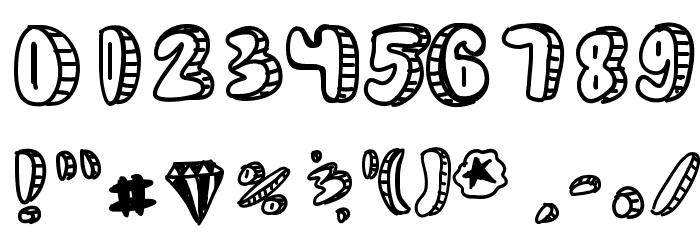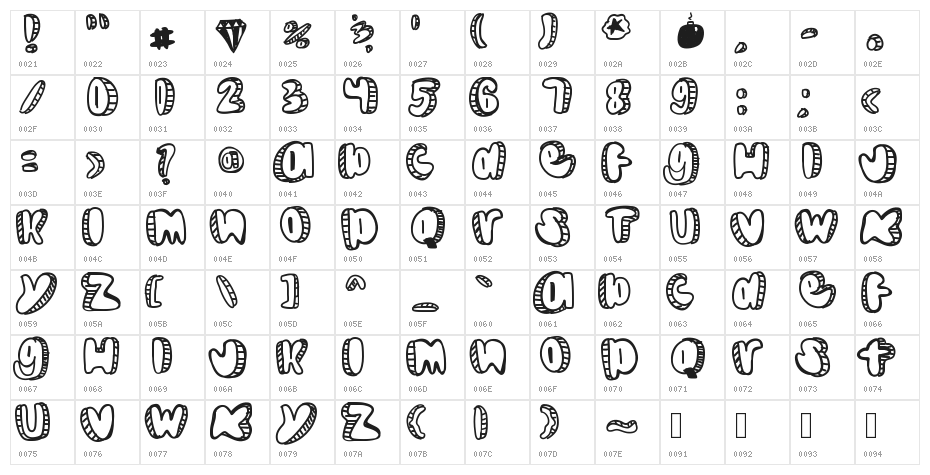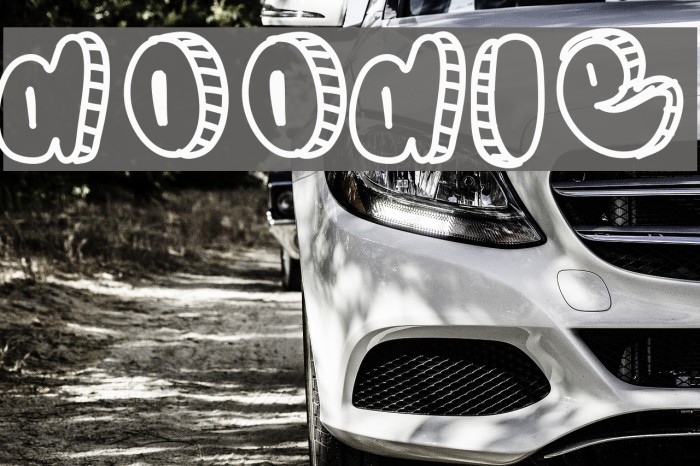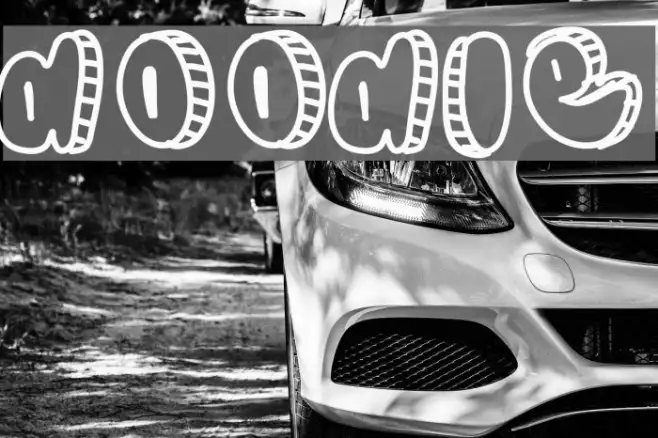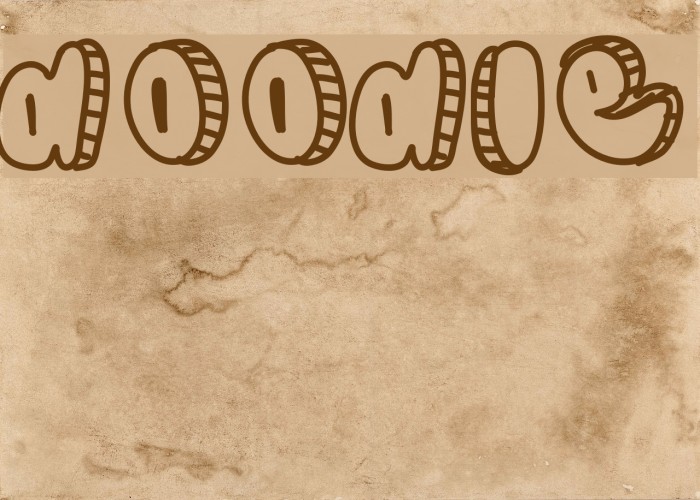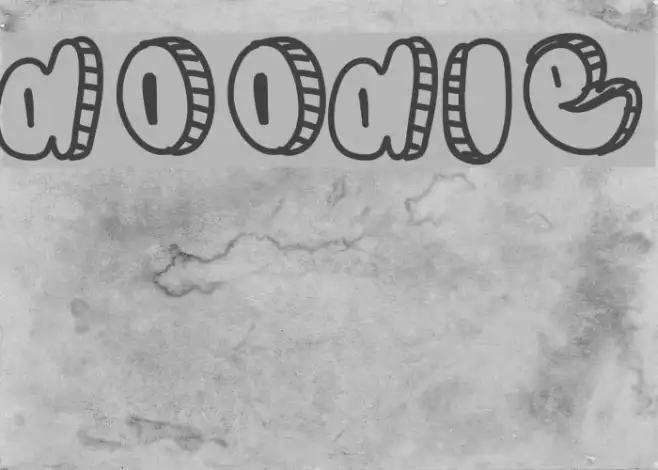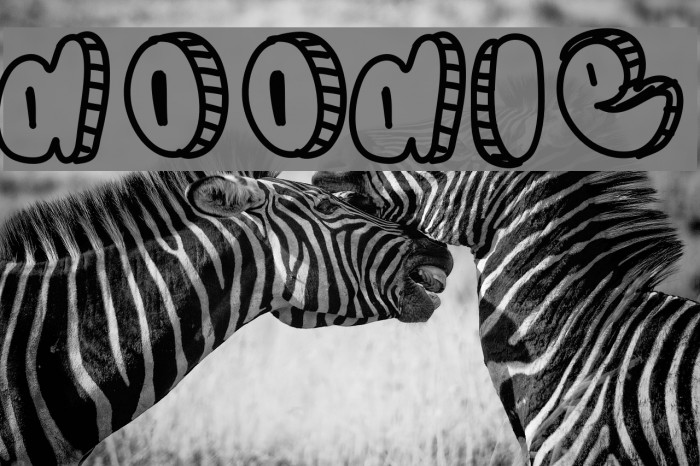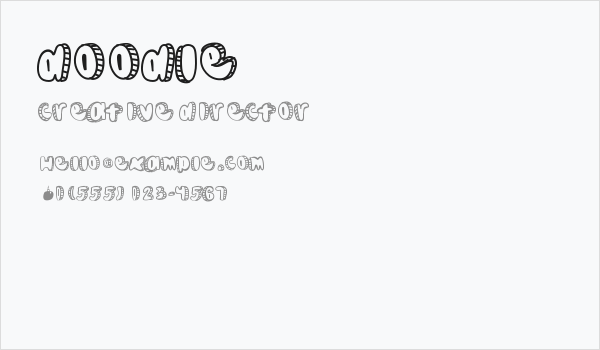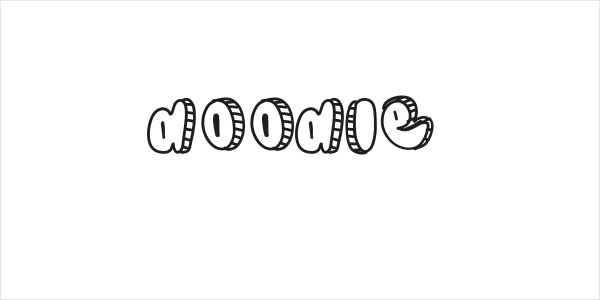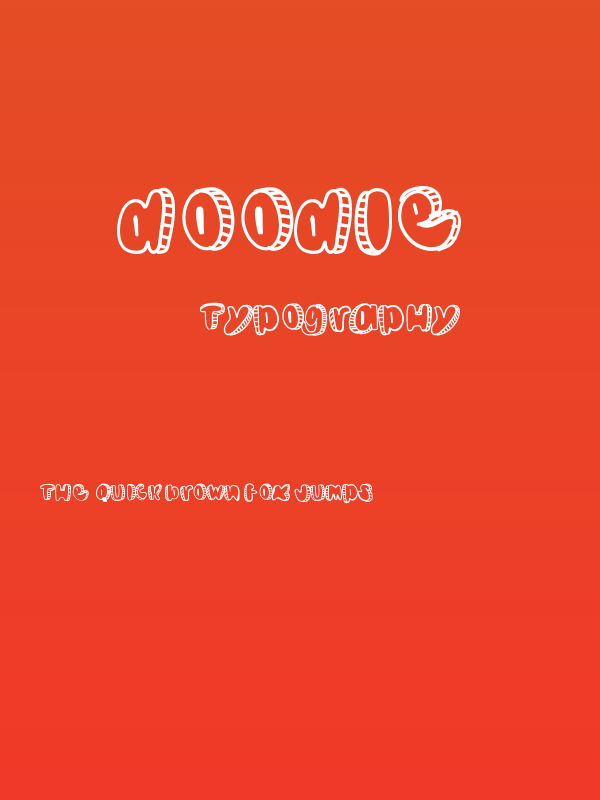
Doodle Font
Doodle Description
This playful and whimsical font features bold, rounded characters with a doodle-like appearance. Each letter is outlined with a thick, black stroke and filled with a pattern of diagonal lines, giving it a hand-drawn, cartoonish style. The uppercase and lowercase letters maintain a consistent style, with exaggerated curves and a slightly uneven baseline that adds to the casual, fun aesthetic. Numbers and special characters follow the same design, making the font cohesive and versatile for creative projects. The overall look is lively and energetic, perfect for capturing attention in a playful manner.
| Overall Style | Playful, Whimsical, Cartoonish |
| Proposed Projects | Ideal for children's books, comic strips, playful branding, party invitations, and creative posters. |